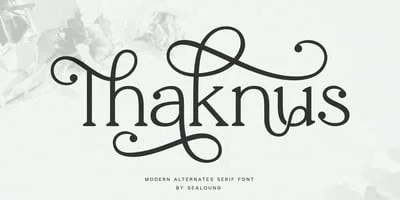
Thaknus Font
Thaknus Font is perfect for mystical design projects including fantasy book covers, magical game interfaces, occult publications, esoteric branding, medieval-themed materials, ancient script reproductions, spiritual wellness centers, and mystical event promotions. This enchanting typeface works brilliantly for tarot card designs, crystal shop branding, astrology websites, ritual ceremony materials, and projects exploring ancient wisdom and supernatural mysteries.
What makes Thaknus Font exciting is its captivating mystical character that perfectly channels ancient wisdom and supernatural energy into modern typography. The font features intricate letterforms with arcane flourishes that evoke the feeling of sacred manuscripts and forbidden knowledge. Its mysterious design elements incorporate symbolic details and ritualistic aesthetics that create an atmosphere of magic and otherworldly power. The carefully crafted characters suggest connections to ancient civilizations and hidden mystical traditions that span centuries.
Thaknus Font comes in multiple family variations including regular, bold, light, and ornamental styles. Each weight maintains the distinctive mystical character while offering different levels of ceremonial intensity and magical presence. The font family includes arcane alternates, mystical ligatures, and ancient symbol variations that provide designers with powerful tools for creating truly enchanting and spiritually resonant typographic experiences.
Whether you're designing fantasy literature, creating mystical branding, or developing spiritual marketing materials, Thaknus Font provides the perfect gateway to explore ancient mysteries and supernatural realms. This extraordinary typeface transforms ordinary text into compelling invitations to discover hidden knowledge and magical possibilities. Download this mesmerizing font today and unlock the mystical power that will transform your design projects into captivating journeys through realms of ancient wisdom and supernatural wonder.